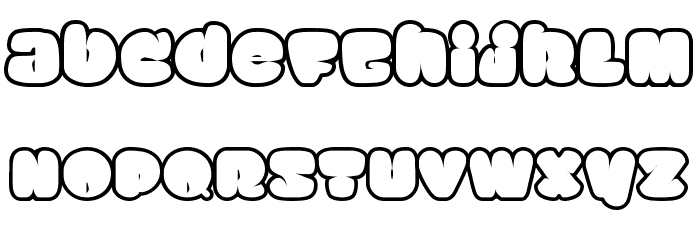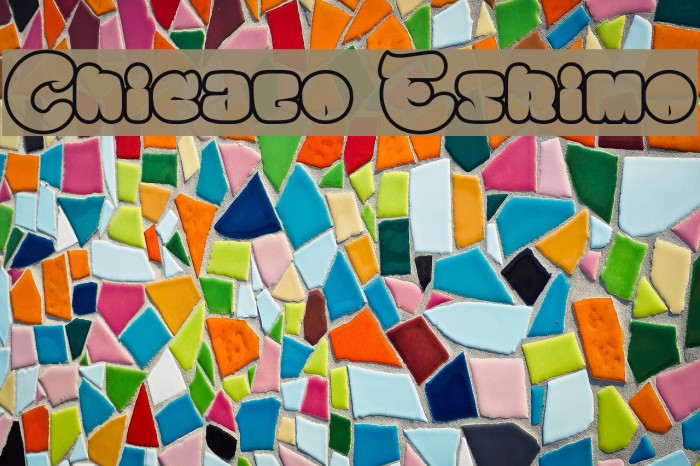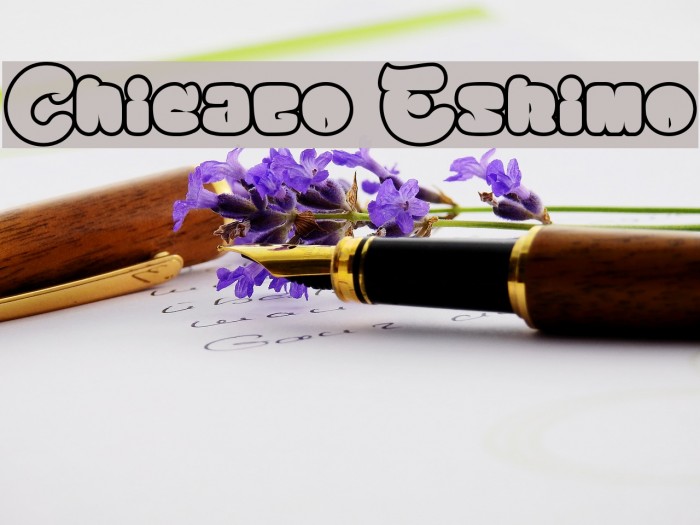
Chicago Eskimo Font
This playful and bold font features a bubble-like design with thick, rounded edges, creating a fun and inviting appearance. The characters are uniformly wide, with a consistent stroke thickness that gives the font a cohesive look. The uppercase and lowercase letters maintain a similar style, enhancing readability while adding a whimsical touch. The numbers and special characters follow the same design principles, ensuring a harmonious overall aesthetic. This font is ideal for projects that require a friendly and approachable feel.
A playful, bubble-like font with thick, rounded edges and a cohesive design.
- Proposed Projects: Perfect for children's books, playful branding, party invitations, and casual posters.
- Width: Expanded
- Overall Style: Playful